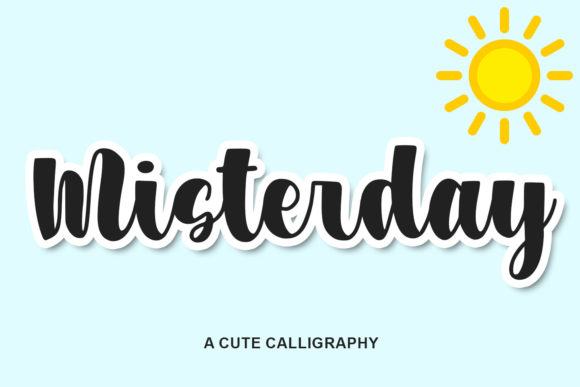
Immerse yourself in the charm and elegance of Misterday, a script font that captures the beauty of handwritten artistry. A creation by the talented Abodaniel, Misterday exudes sophistication and grace, making it the perfect choice for those seeking a personal touch in their designs. With its sweeping strokes and intricate details, Misterday adds a touch of whimsy and uniqueness to any project. It's not just a font; it's an expression of your creativity and individuality.
Misterday's versatility makes it an exceptional choice for a wide range of applications. Whether you're creating title notes, designing custom t-shirts, or crafting heartfelt quotes, Misterday's enchanting curves will add a captivating allure to your words. Its charm extends to mugs, tote bag designs, cards, banners, social media posts, and an array of craft projects. Misterday seamlessly adapts to any canvas, bringing your ideas to life with remarkable flair and authenticity.
With Misterday, you'll discover a limitless realm of creative possibilities. Its timeless style transcends trends, ensuring that your designs remain relevant and captivating. Unleash your imagination and watch as Misterday transforms your projects into stunning works of art. Embrace the allure of this extraordinary font and embark on a creative journey that knows no bounds. Let Misterday be your companion as you craft designs that resonate with your unique style and vision.